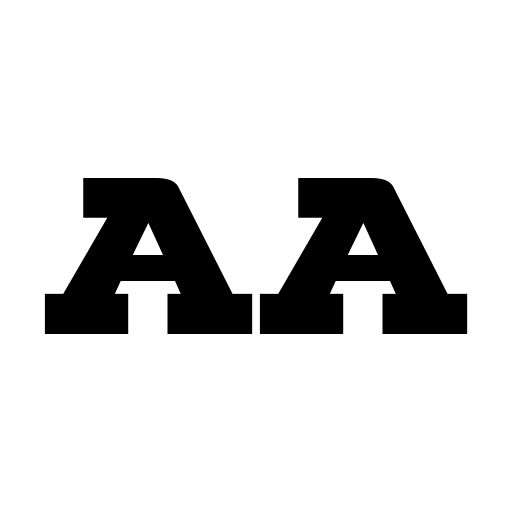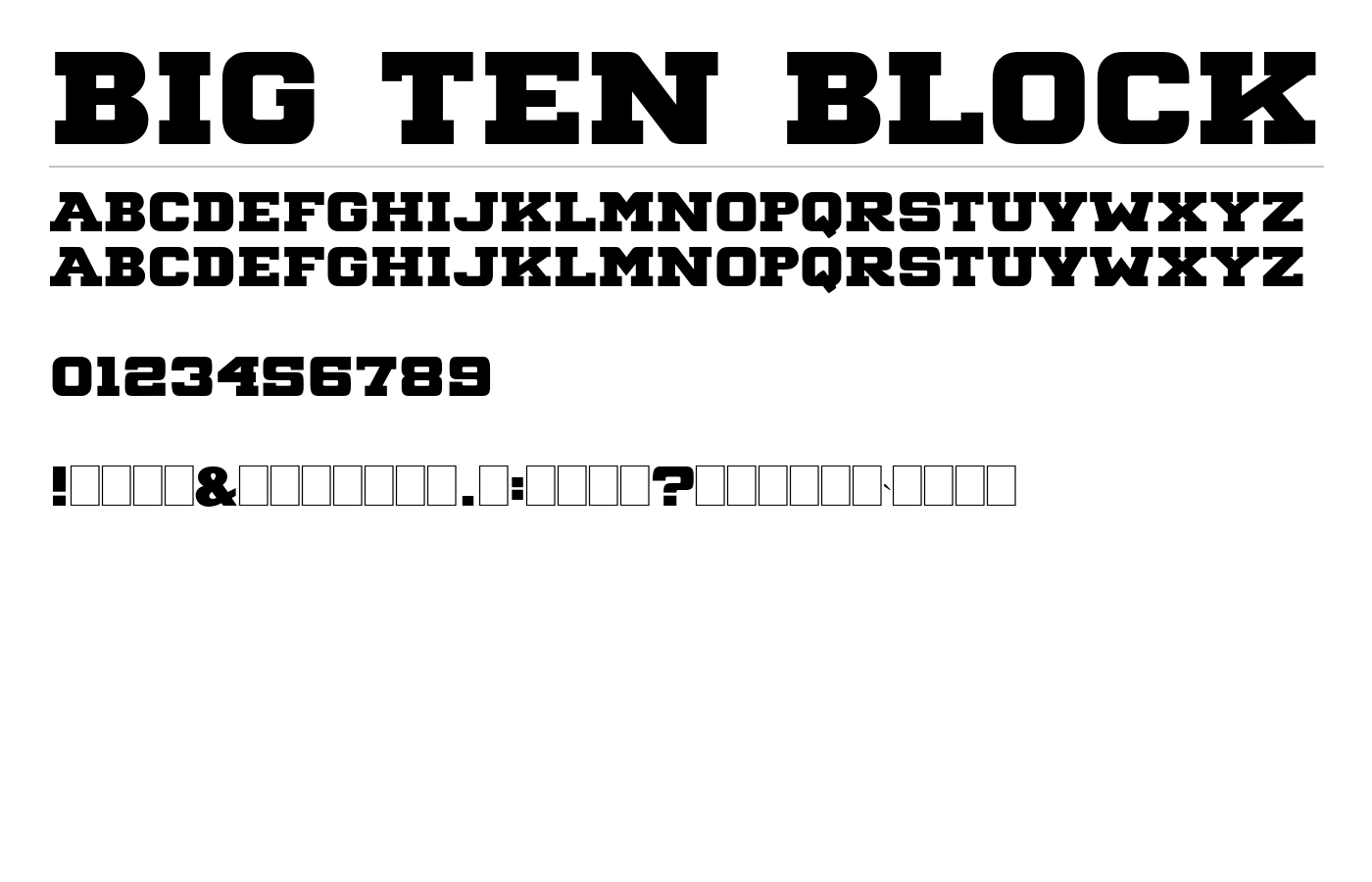
Big Ten Block is a bold, slab serif typeface characterized by its strong, blocky letterforms with thick, bracketed serifs and a sturdy, solid weight. Its design conveys a vintage, collegiate feel, making it ideal for sports branding, headlines, and logos where a powerful, authoritative presence is desired. This font works well in display settings where impact and clarity are essential, such as posters, packaging, and editorial titles.
Big Ten Block Font